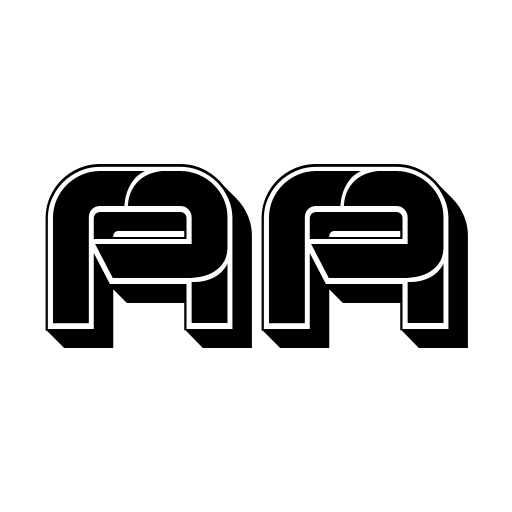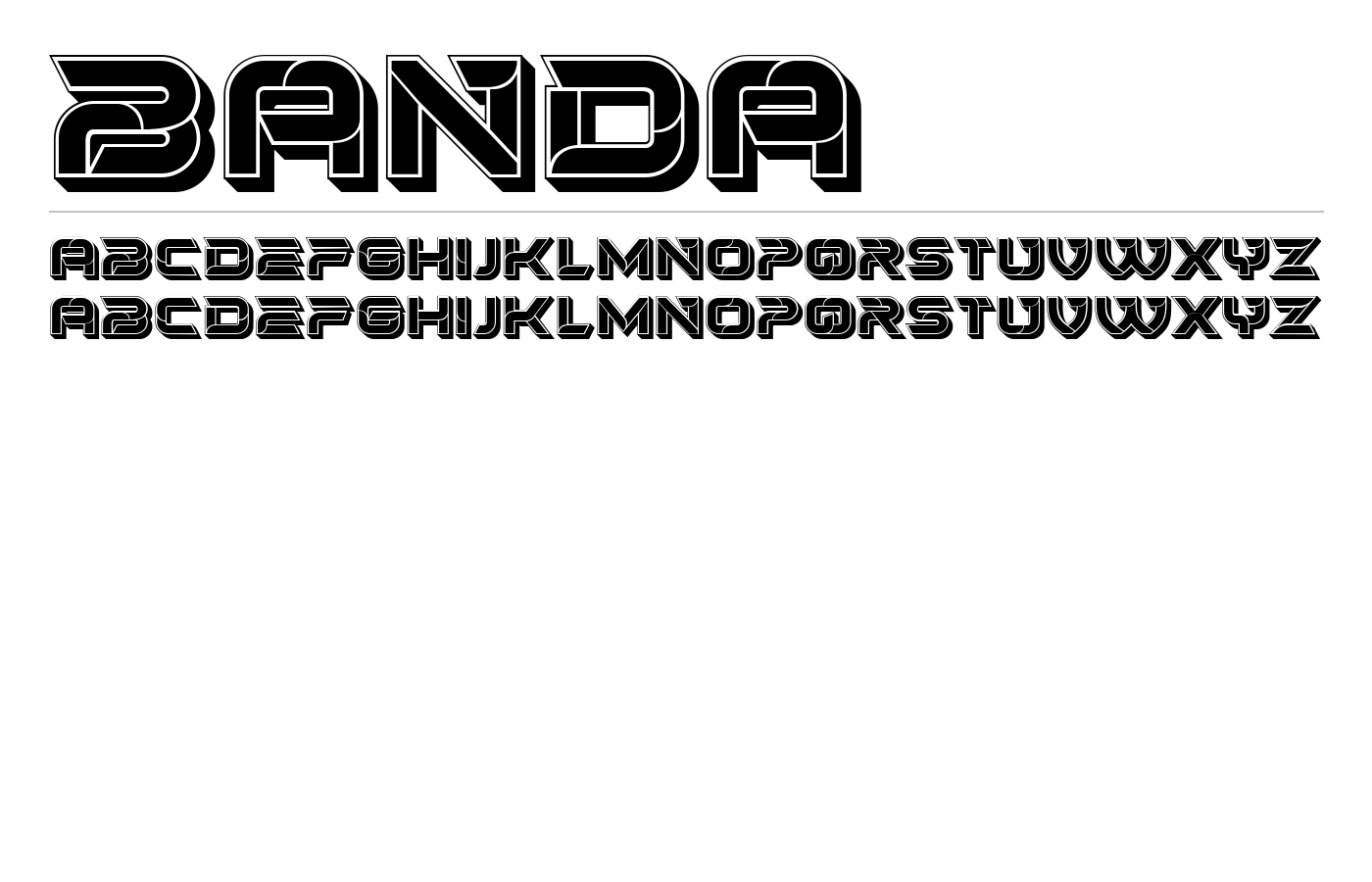
Banda is a bold, decorative sans serif font with a strong 3D effect created by thick black shadows and white outlines, giving it a dynamic and modern feel. Its wide, geometric letterforms with sharp angles and unique cut-out details convey a stylish, futuristic vibe, making it perfect for eye-catching headlines, posters, and branding projects that need a contemporary and impactful look. This font shines best in display use where its distinctive layered design can stand out and make a memorable impression.
Banda Font
About Banda Font